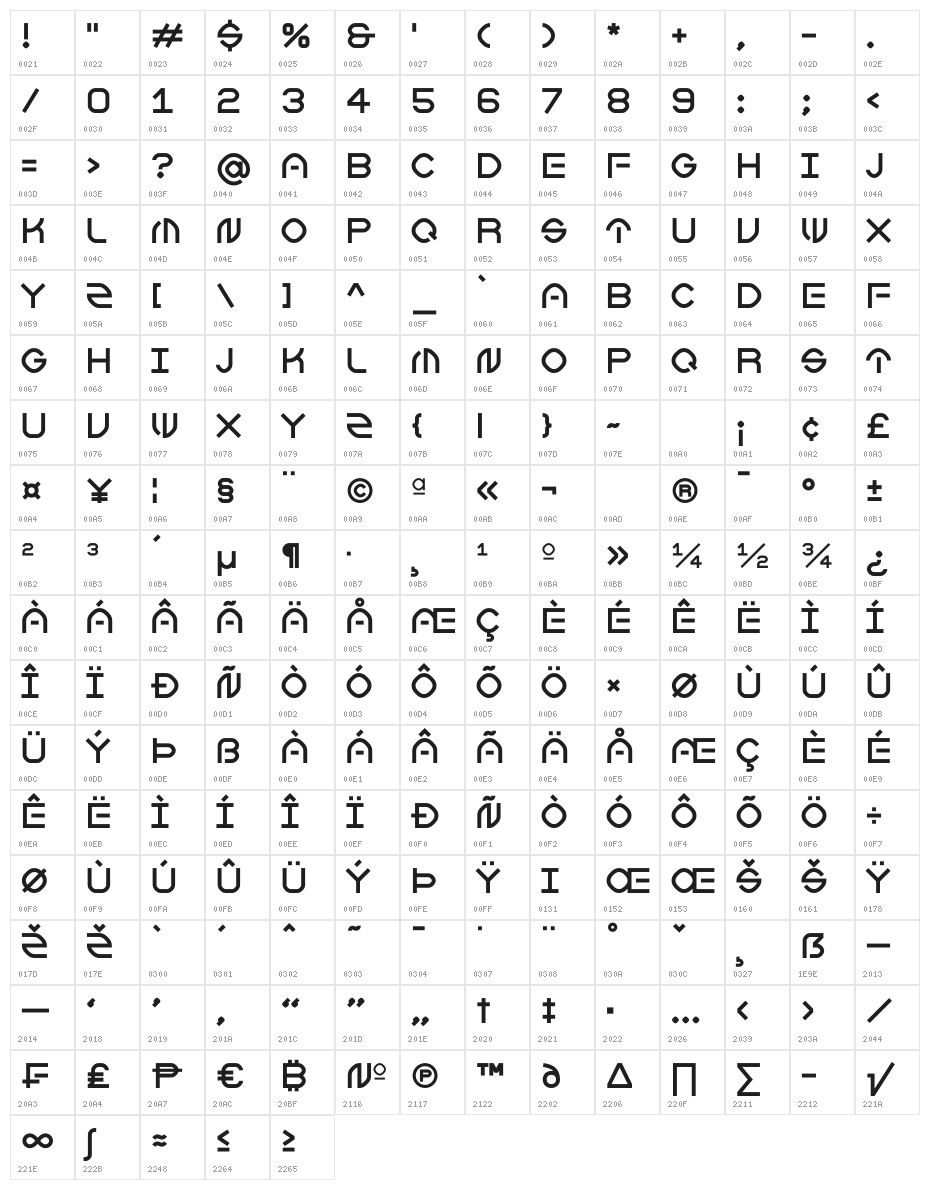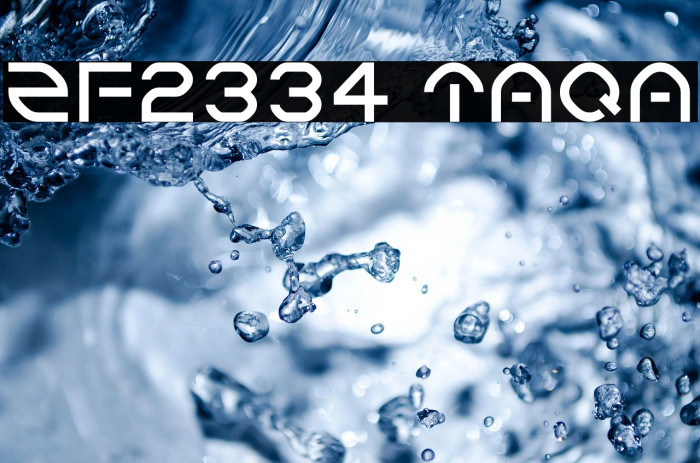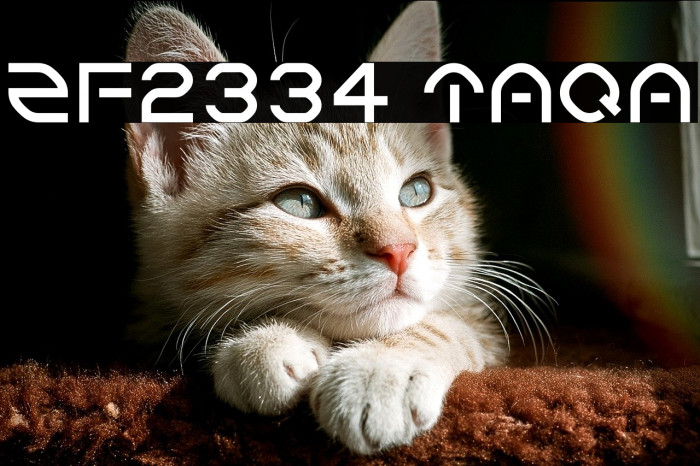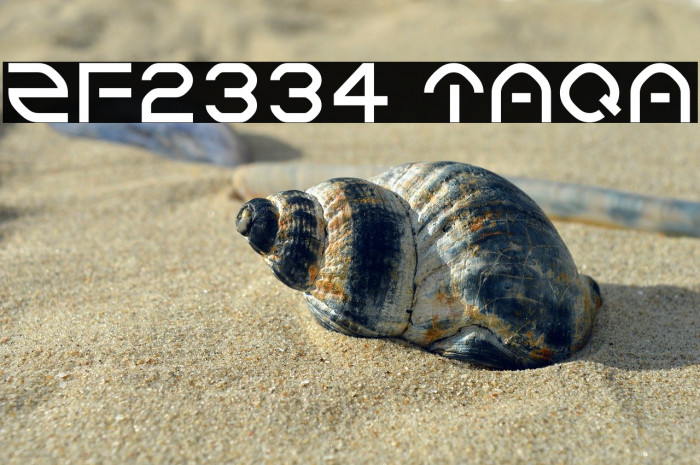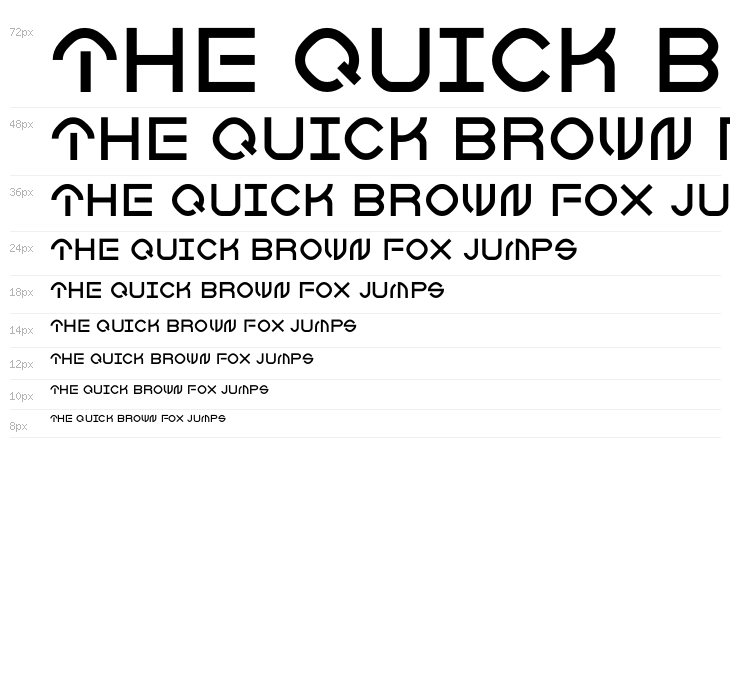
ZF2334 Taqa Font
ZF2334 Taqa Description
This font features a clean and modern design with a sans-serif style. The characters are evenly spaced, providing a balanced and readable appearance. The uppercase letters are bold and assertive, while the lowercase letters maintain a consistent and harmonious flow. Numbers are clear and distinct, making them easily legible. Special characters are well-integrated, adding versatility to the font's usage. The overall design is sleek and professional, suitable for a variety of applications.
| Proposed Projects | Ideal for corporate branding, digital interfaces, and editorial design. |